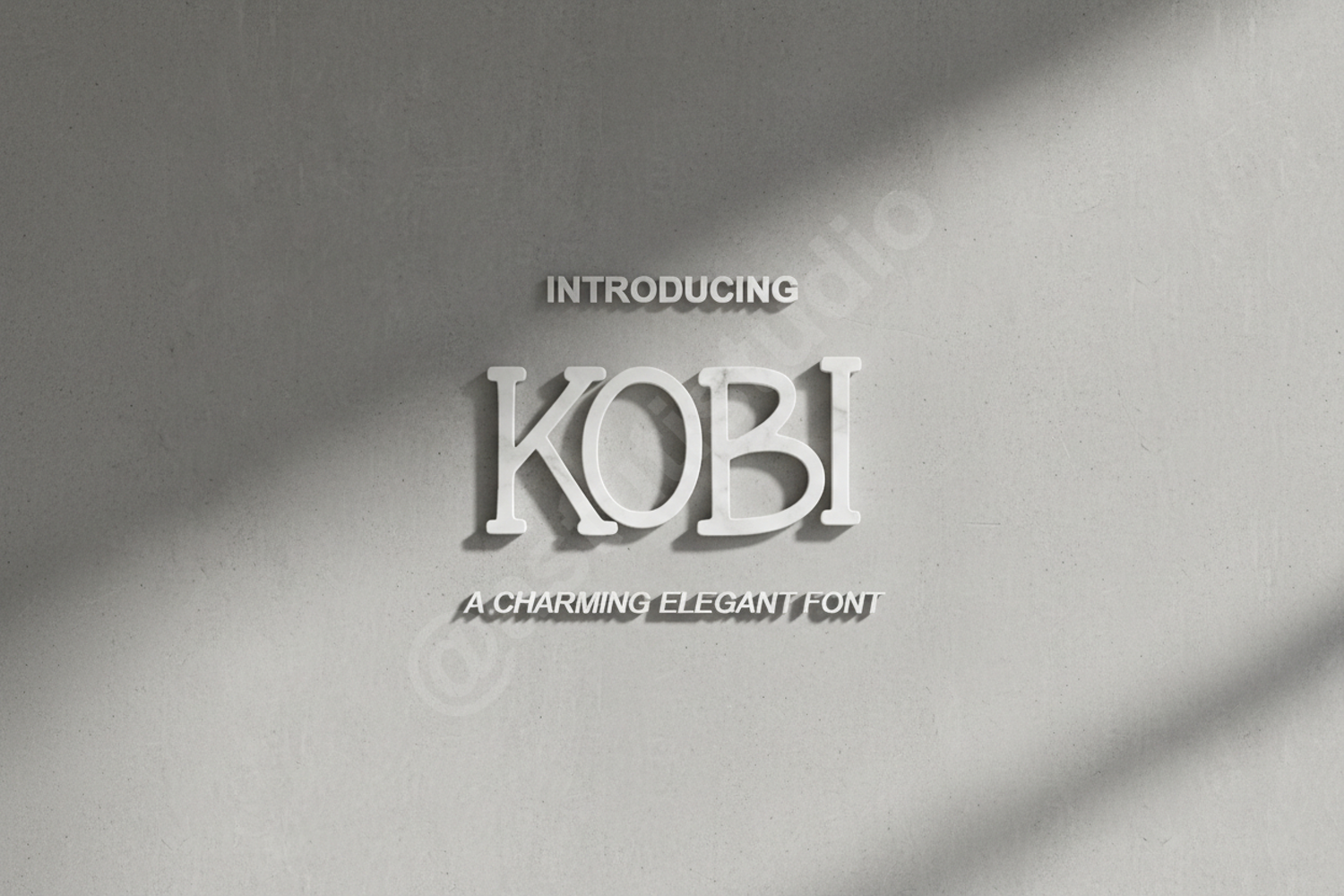
Kobi | Modern Minimalist Sans Serif Typeface
Kobi
Kobi is a premium sans serif typeface designed with precision and modern aesthetics in mind. Featuring clean lines and balanced proportions, this font offers a sophisticated touch to any creative project. Whether you are aiming for a minimalist look or a bold statement, Kobi provides the versatility needed for high-end design work.